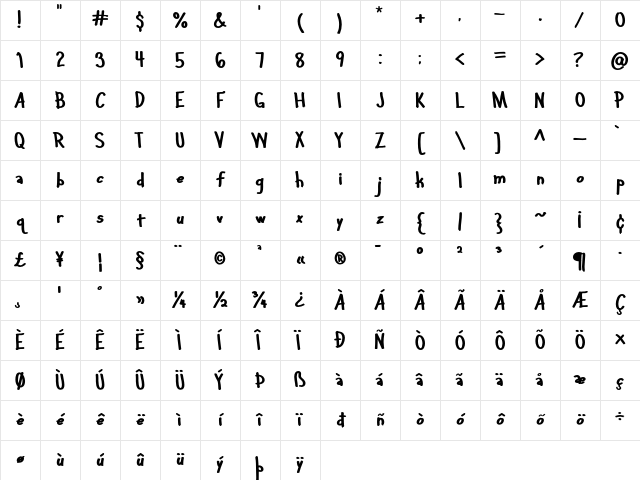
Complete Art Club Roman glyph index. Displaying only characters natively supported by Art Club Roman font.
Art Club is a composed and adaptable typeface that performs quietly and consistently across a wide range of design contexts.